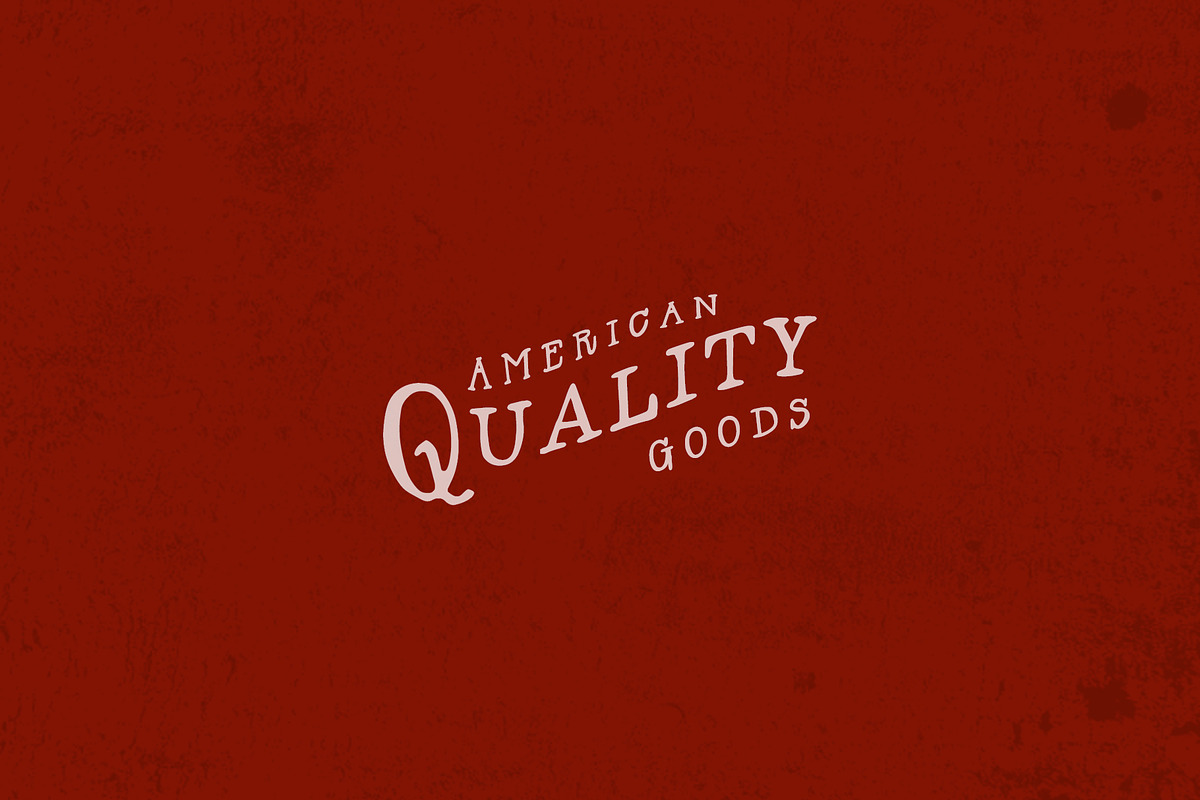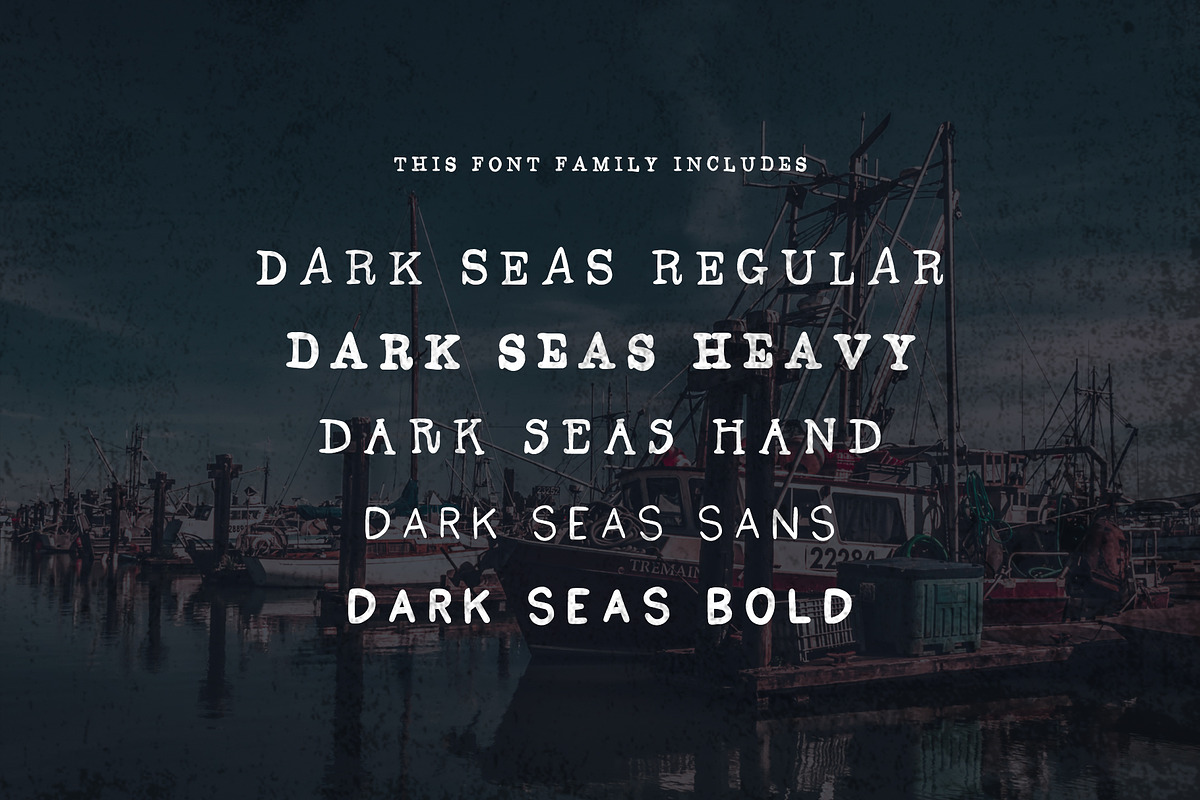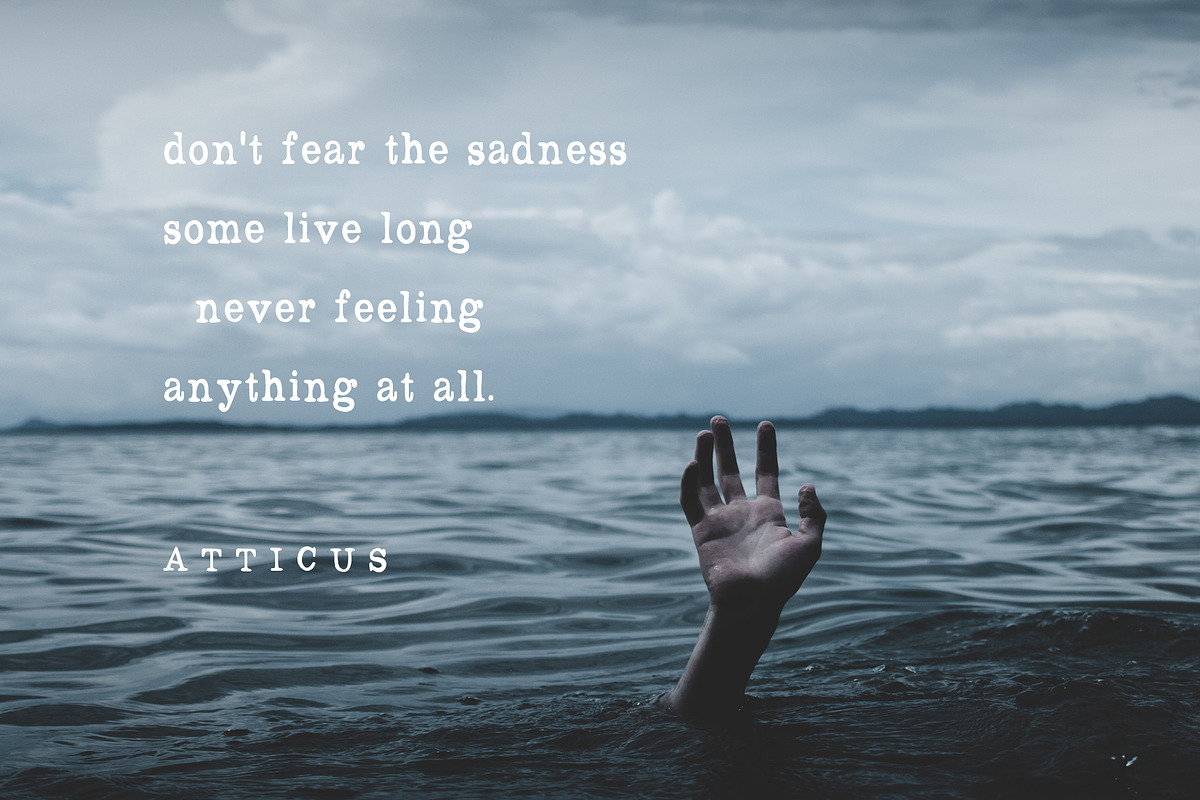
Dark Seas Font Family
Dark SeasA hand drawn font family
This font comes with five styles that pair seamlessly together, creating the ultimate tool to give your designs clarity, style, and impact.
Dark Seas Font Family by Midnight Grim fits naturally into Branding, posters, packaging, typography.